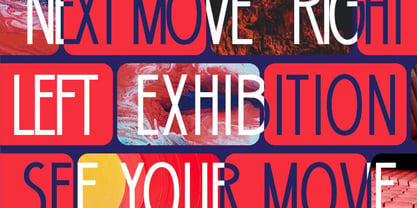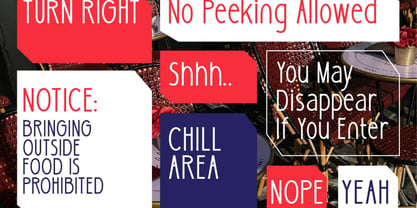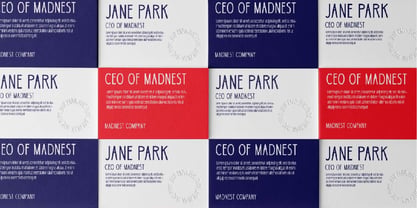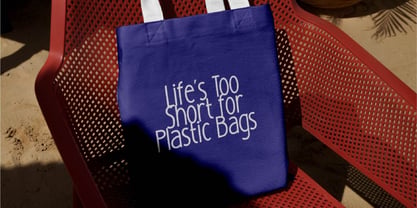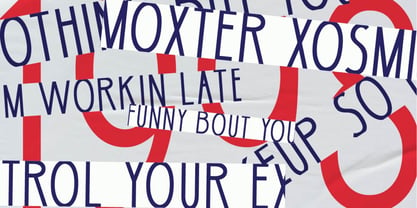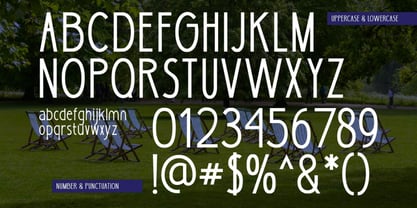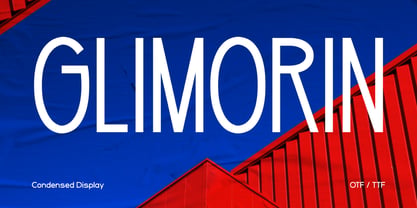
Glimorin
The Glimorin Font Family was designed by and published by Vadova Std. Glimorin contains 1 styles. More about this family
Glimorin is a sans serif font that stands out with its bold presence and clean geometry. Designed with a narrow structure and high legibility, Glimorin is ideal for impactful statements, signage, branding, and editorial titles. It features a complete character set including uppercase, lowercase, numerals, and essential punctuation, all crafted with a condensed, minimalist form that adapts seamlessly to modern design needs. Glimorin provides a functional yet stylish voice that commands attention without clutter. The font is delivered for full compatibility with standard design software and operating systems.